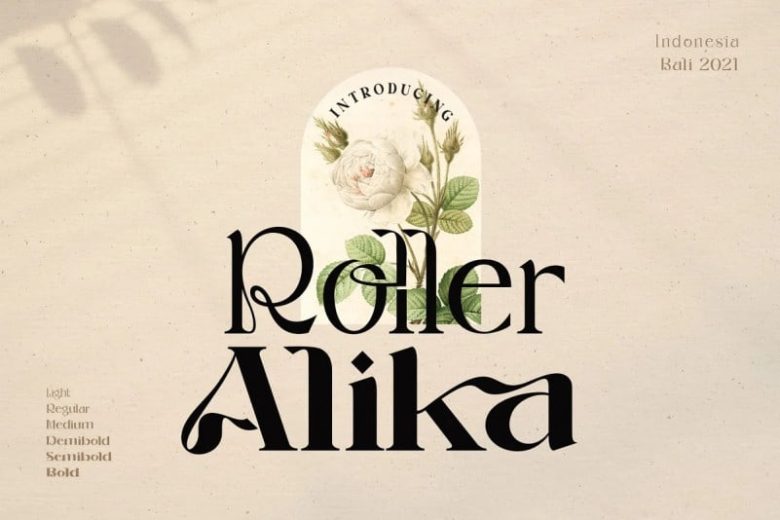
Roller Alika Font
Roller Alika Serif Font – A new serif typeface inspired by luxury fashion, thinking about a glamorous nightdress. This font has an elegant and from thin until demi bold family. It is perfect for designs with romantic themes such as wedding properties, Valentine cards, romantic quotes and others.